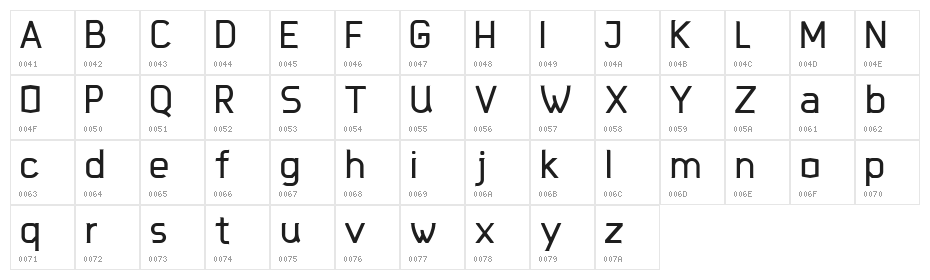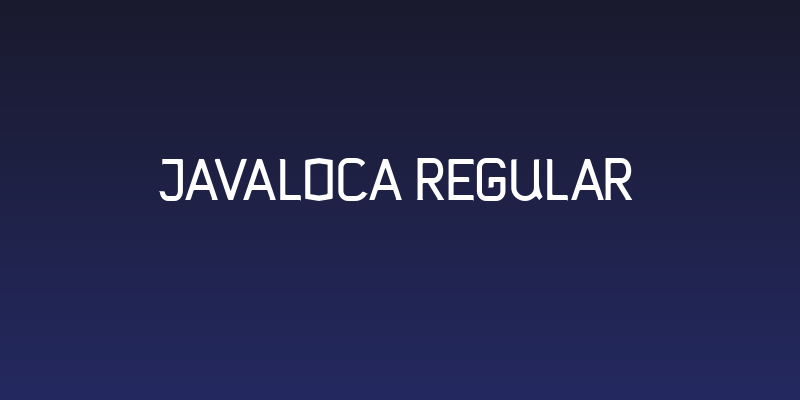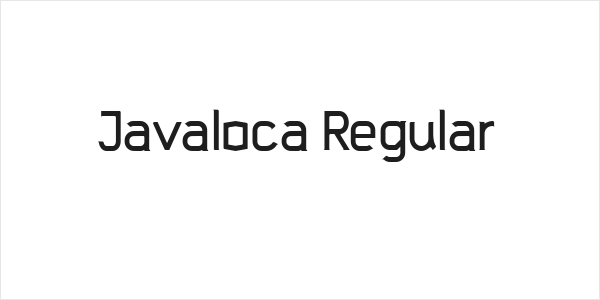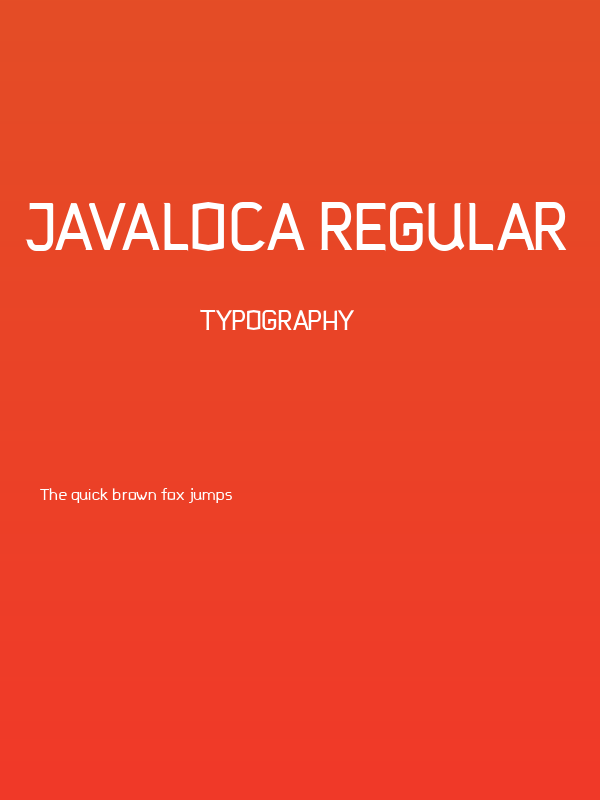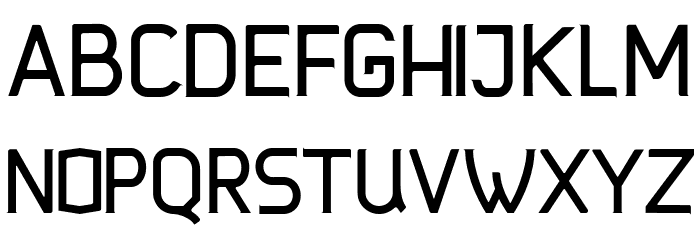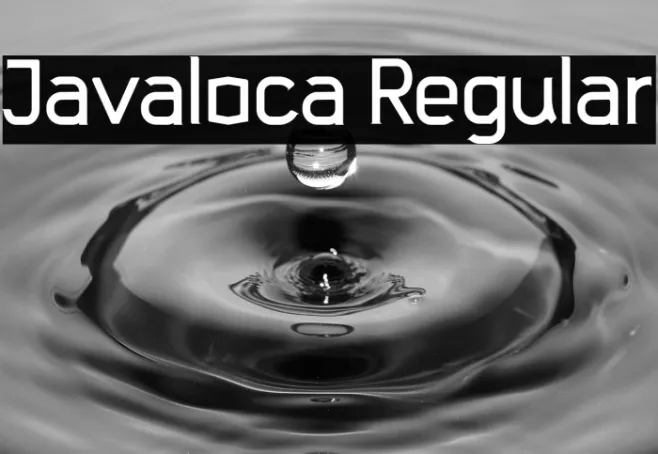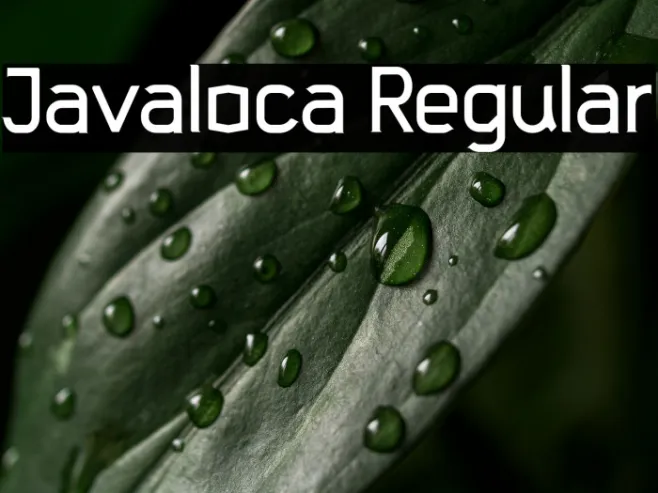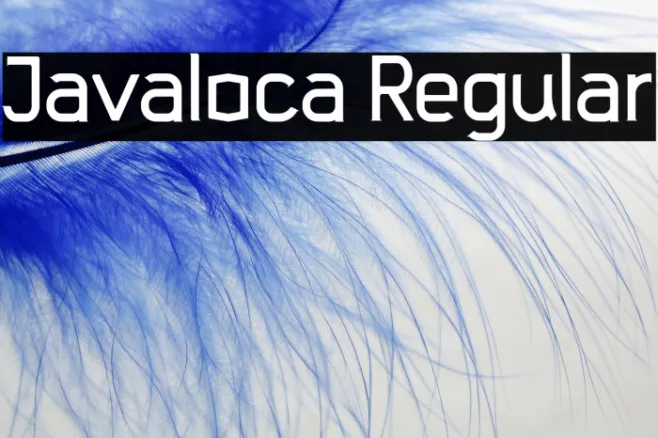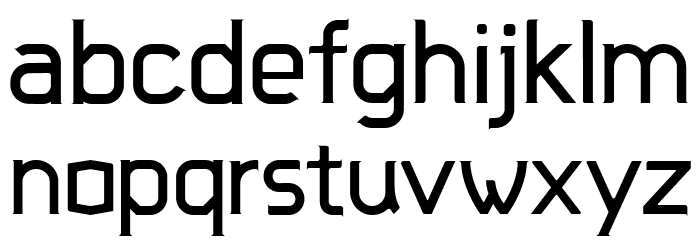
Javaloca Regular Font
Javaloca Regular Description
This font features a modern and geometric design with a unique blend of angular and rounded elements. The uppercase letters are bold and assertive, while the lowercase letters maintain a consistent style with slightly softer curves. The numerals are clear and easy to read, complementing the overall aesthetic. Special characters are designed to match the font's distinctive style, making it versatile for various applications. The font's clean lines and balanced proportions make it suitable for both digital and print media.